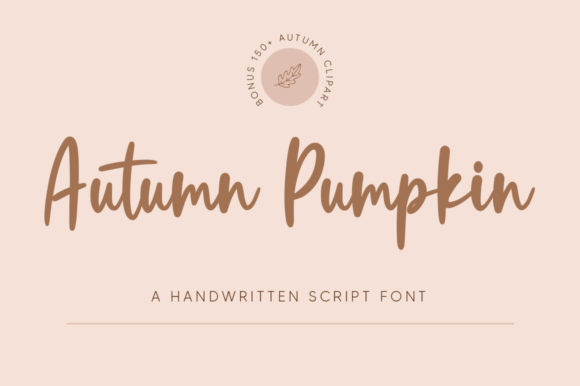
Prepare yourself to be enchanted by the whimsical charm of Autumn Pumpkin Font, a captivating script font family that has captured the essence of autumn's golden embrace. Crafted with precision by Graphix Line Studio, this font is a fluid symphony of delicate strokes, flowing effortlessly like a gentle breeze through a grove of trees aglow with fall's vibrant hues.
With its inherent romanticism, Autumn Pumpkin Font is an ideal choice for crafting heartfelt messages that speak to the soul. Imagine your wedding invitations adorned with this elegant script, each letter a testament to the love you share. Or, envision creating cards that exude warmth and joy, their sentiments enhanced by the font's graceful curves.
This versatile font family is an artist's canvas, ready to transform any design into a masterpiece. Its innate charm adds a touch of sophistication to logos and branding, while its playful nature lends itself effortlessly to children's books and whimsical illustrations. Unleash your creativity and watch as Autumn Pumpkin Font weaves its magic, captivating hearts with its timeless beauty.